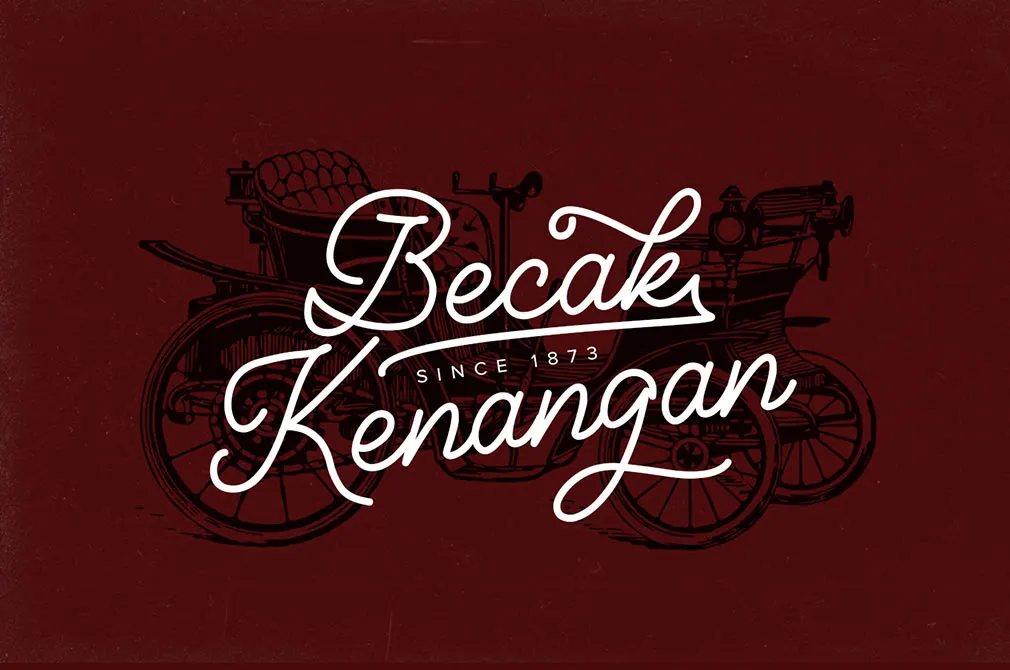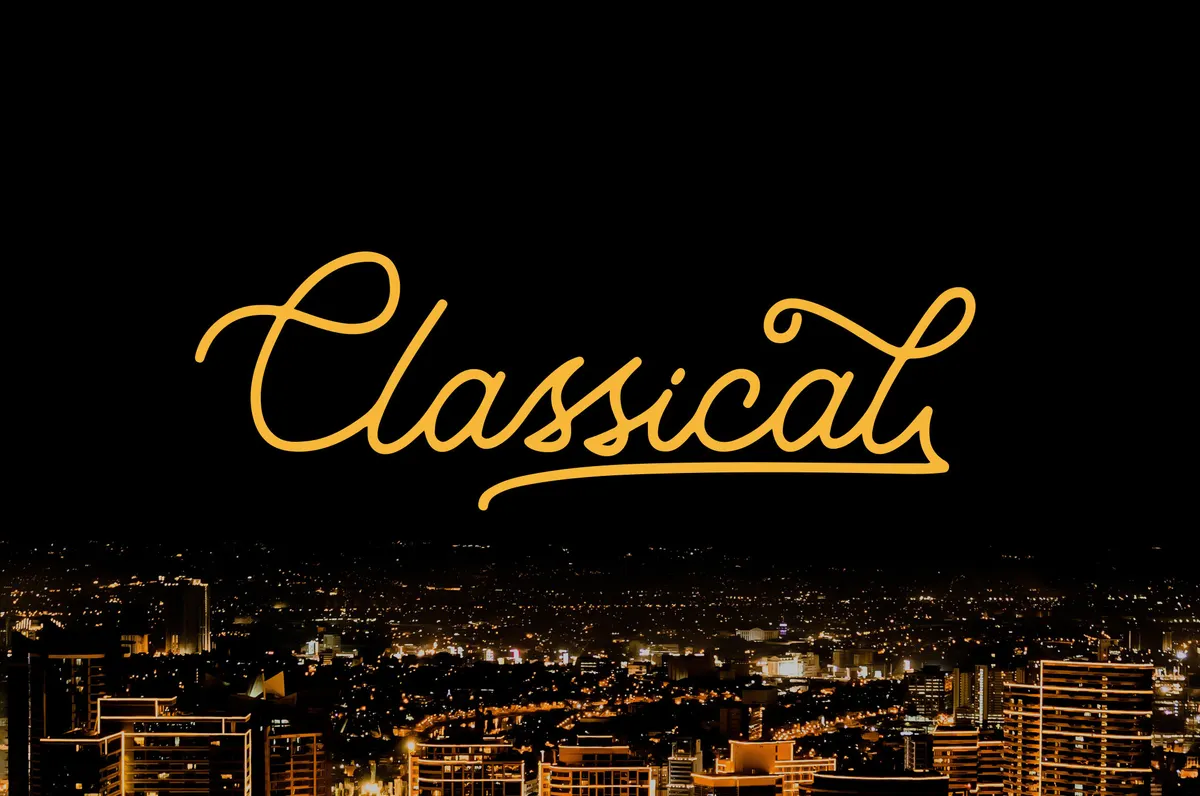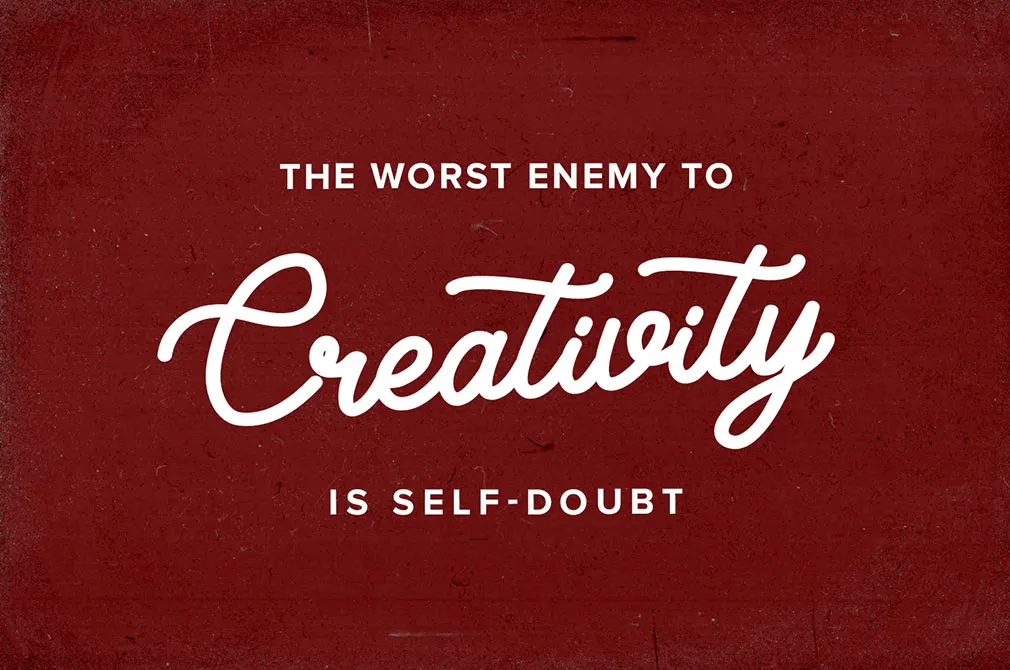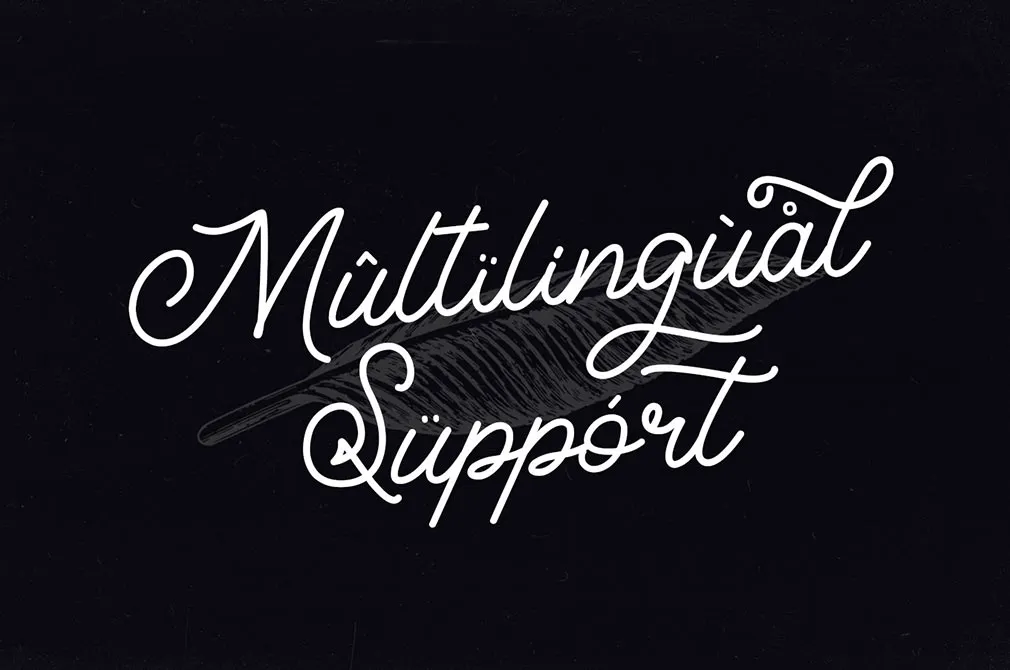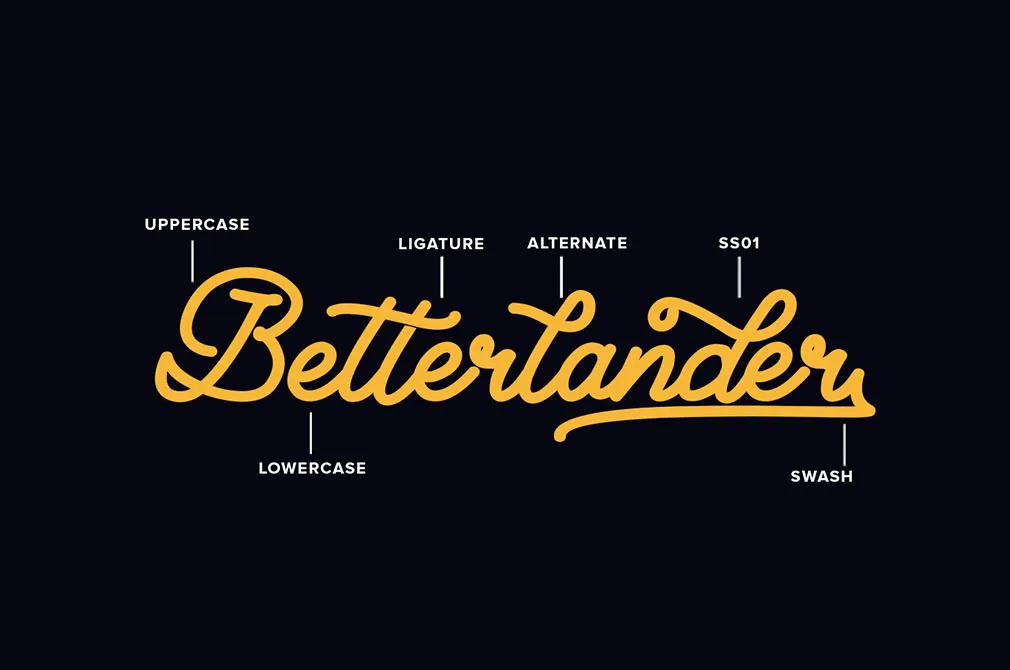
Classical Monoline Script Font
Get yourself a fresh handwritten typeface, filled with aesthetics in every curve and line. Clean calligraphy in its best traditions with excellent swashes, complementing your composition.
This script must tell others your incredible design stories with its polished turns, building exquisite letters. Self-expression has no limits due to the multilingual support provided as well as ligatures, alternates, lower and upper case. You only have to come up with ideas of applying this script, for example, to posters, business cards, wedding invitations, logotypes, photocollages and more. There's no chance your work will be underestimated!